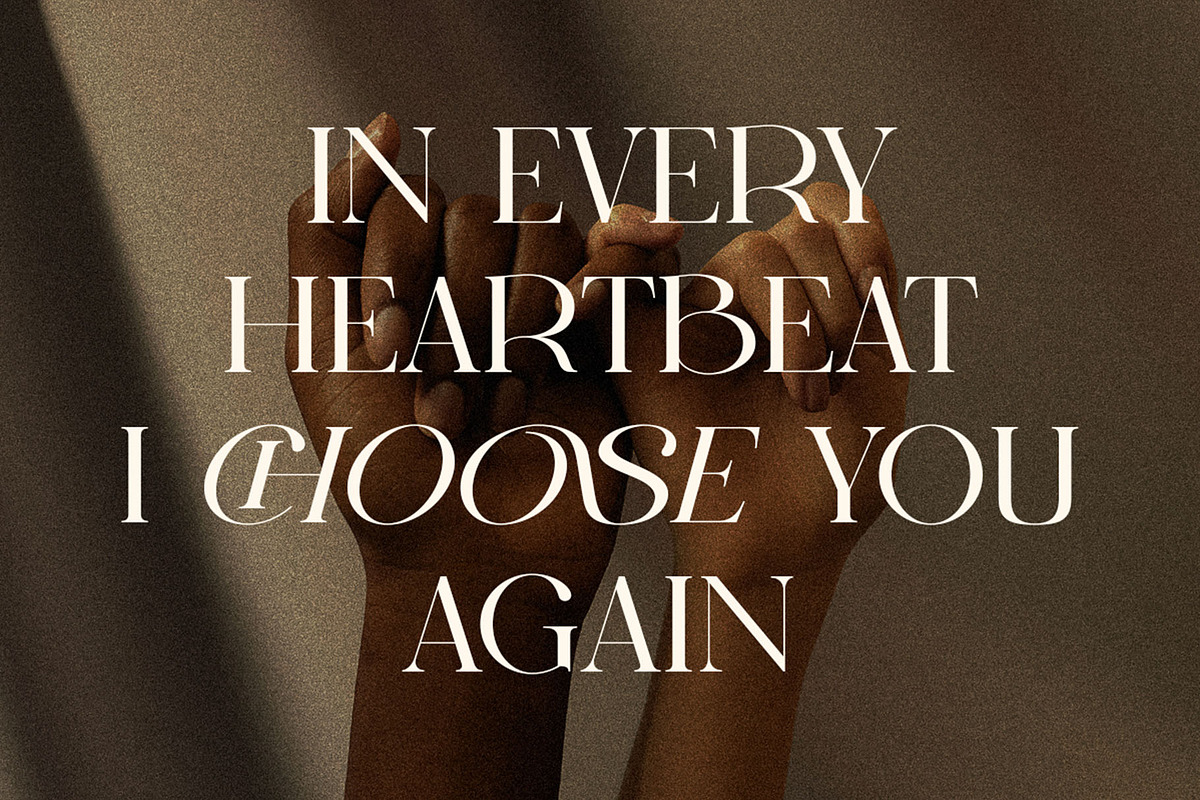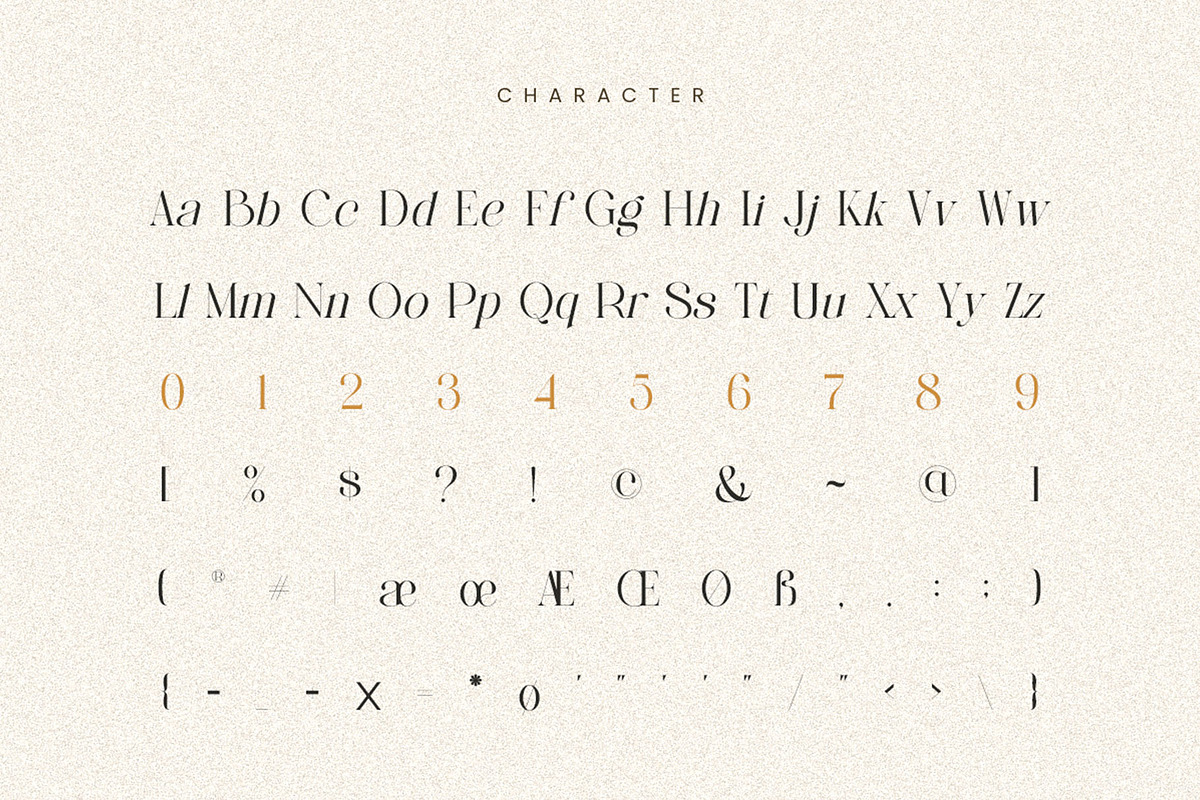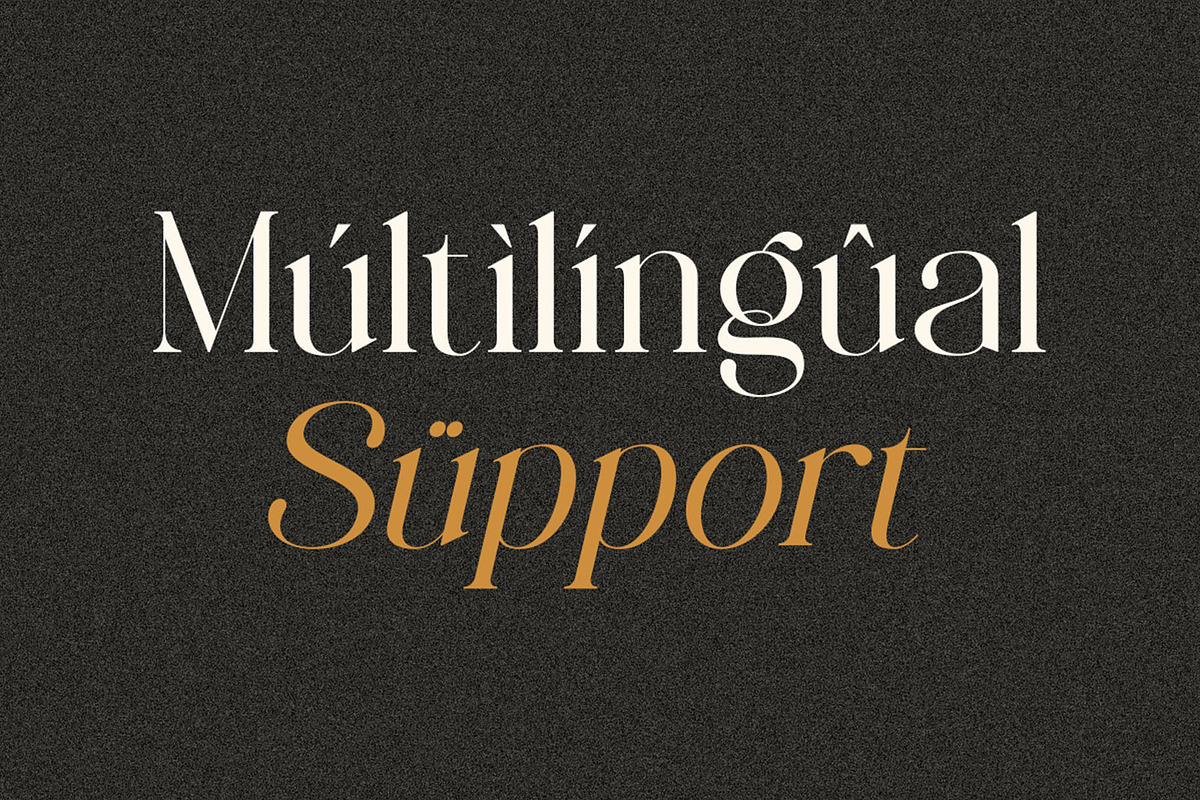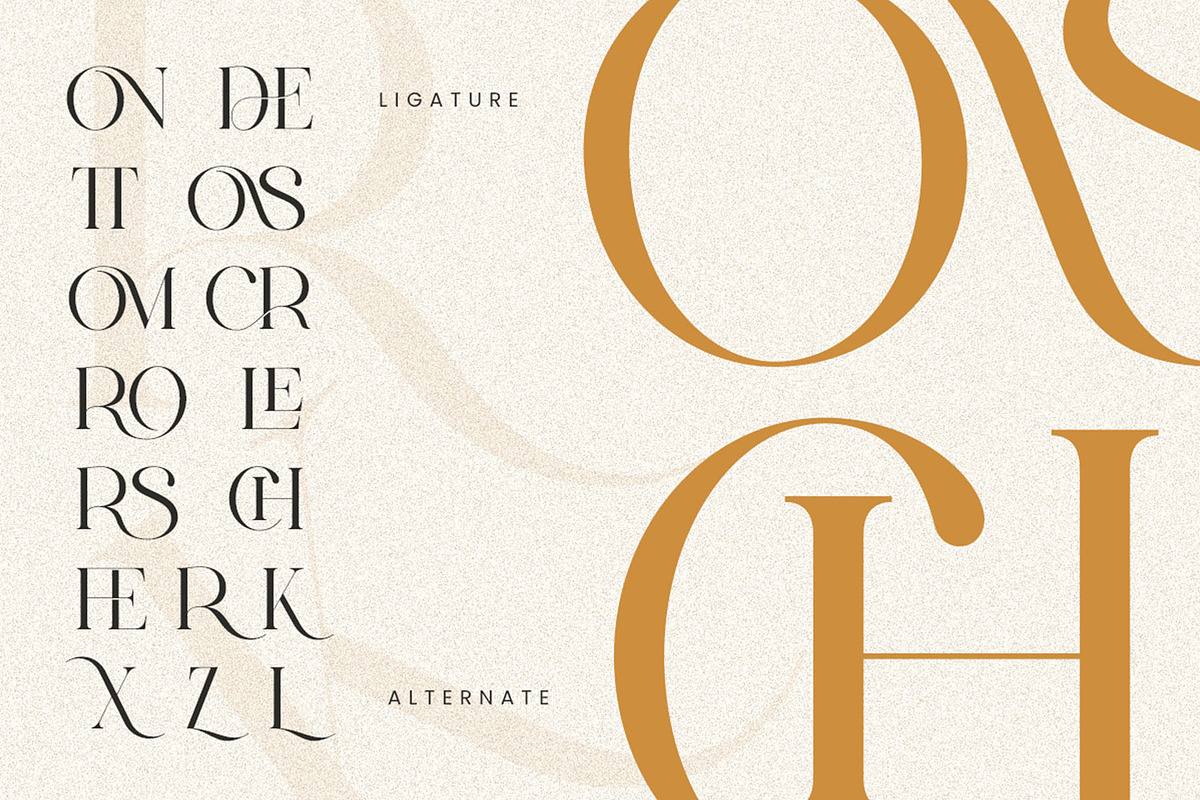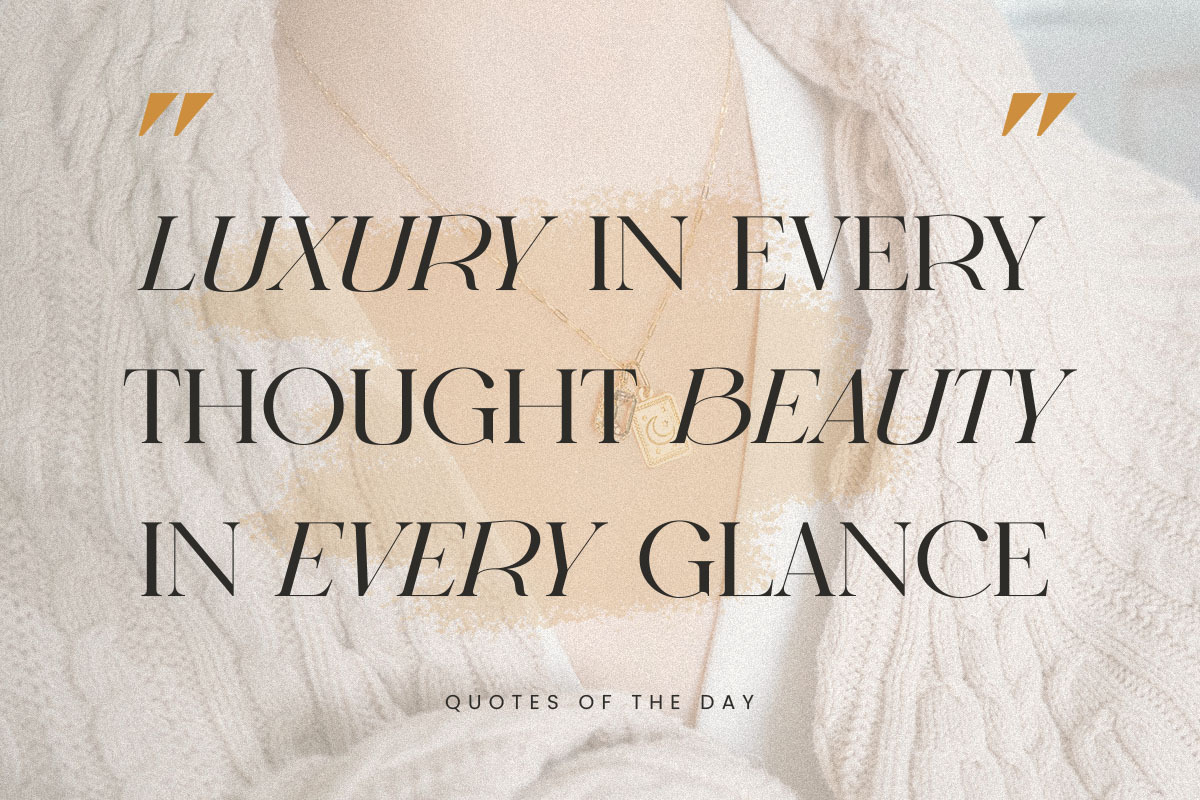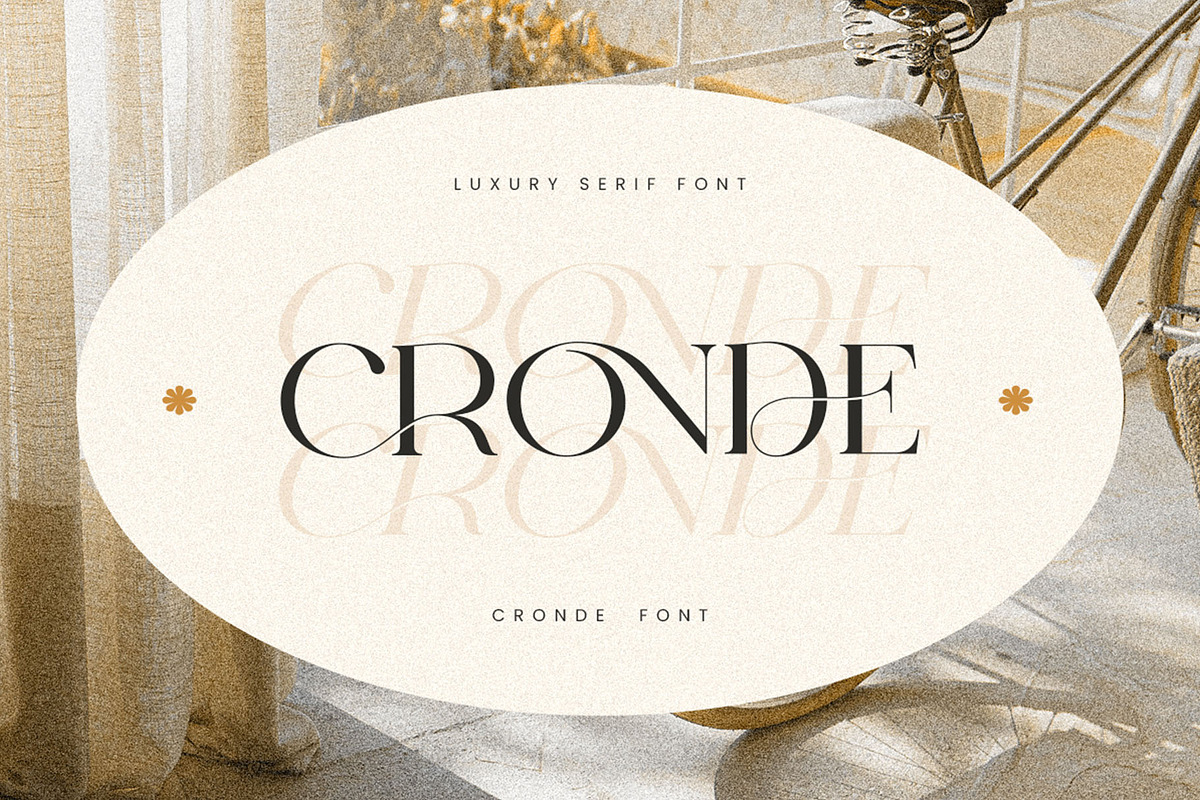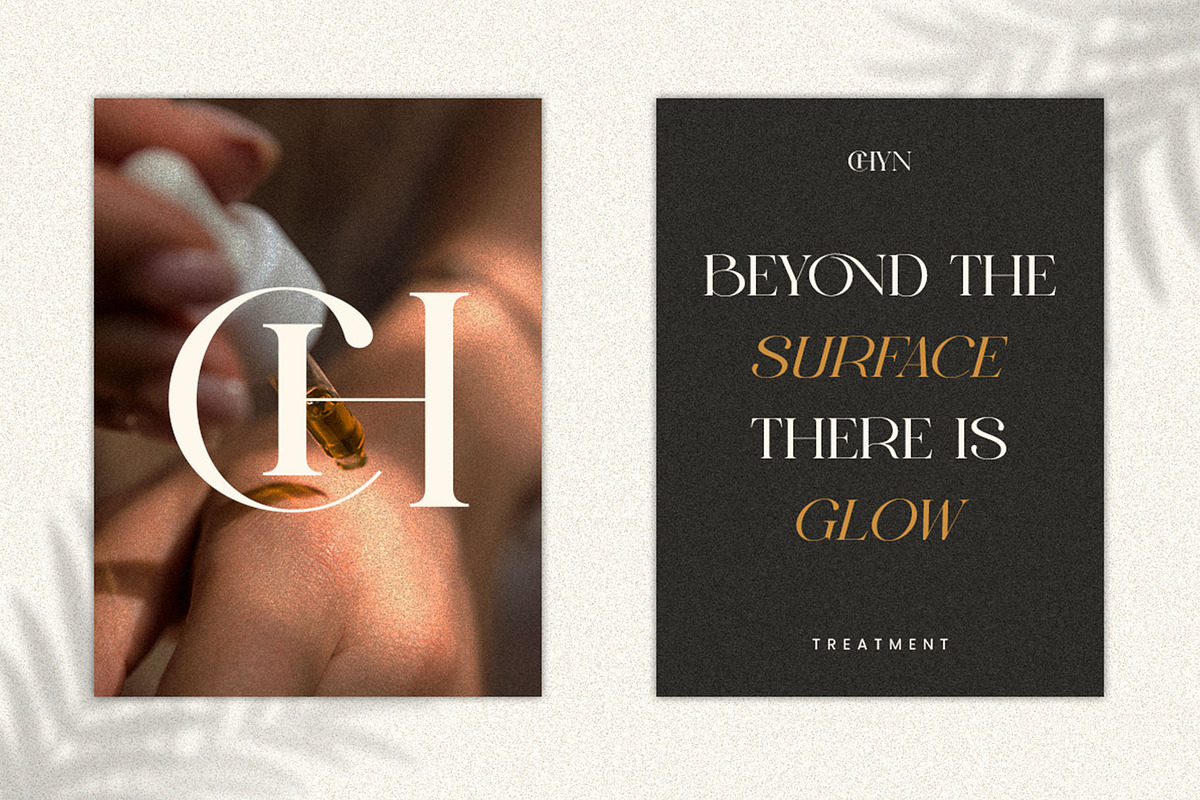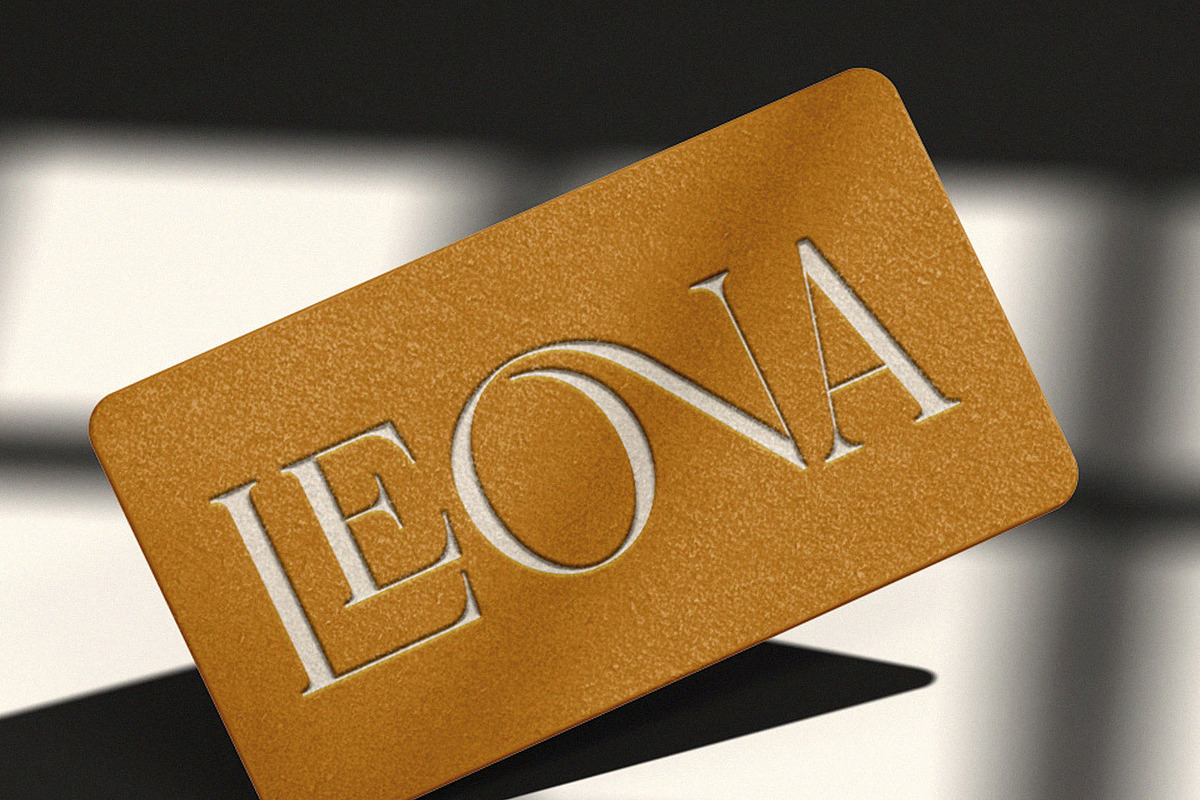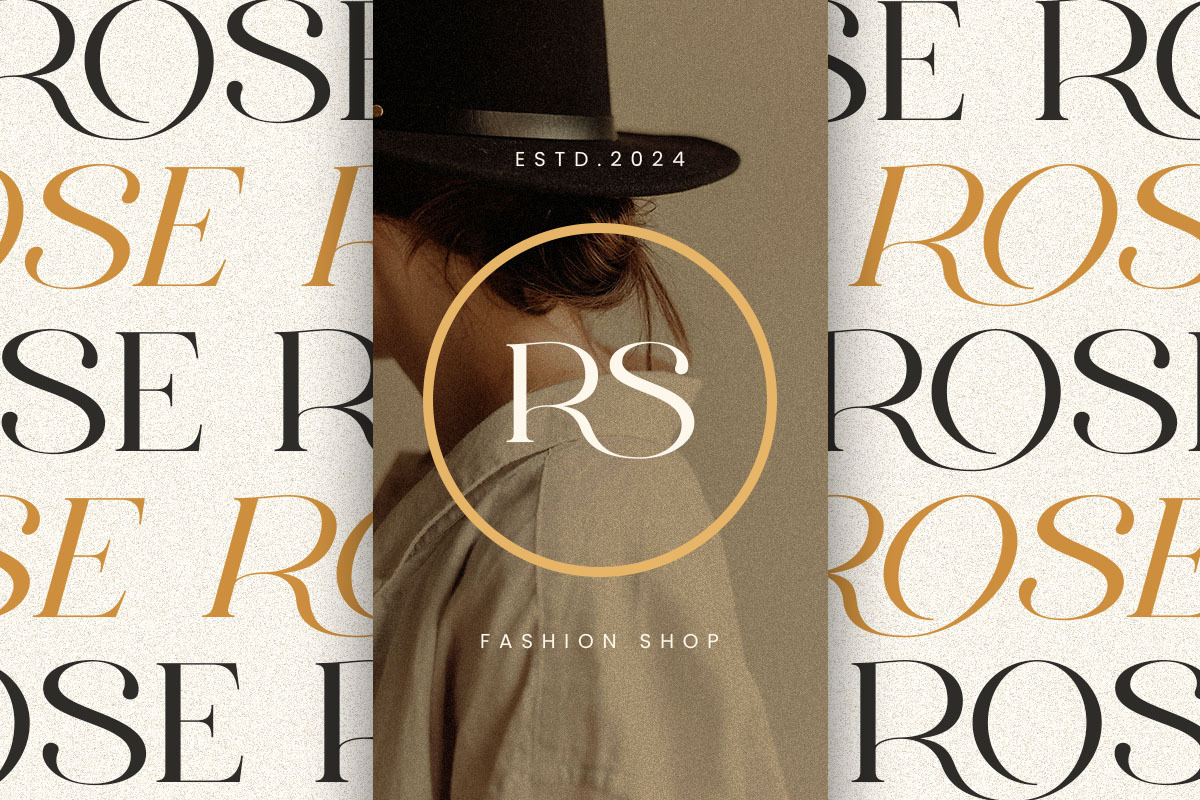
CRONDE || Elegant Luxury Serif
Introducing CRONDE, a modern serif font that captures the essence of timeless elegance and sophistication. With its refined shapes, subtle contrasts, and graceful curves, CRONDE blends classic charm with a fresh, modern feel, making it ideal for designers looking to create luxurious and professional visuals.
Each letter is meticulously designed to convey confidence, beauty, and balance.
CRONDE is perfect for high-end branding, editorial layouts, fashion logos and packaging, magazines, beauty products, wedding invitations, product packaging, and social media.
Bring elegance and confidence to your designs with CRONDE, a modern serif font designed for timeless luxury.